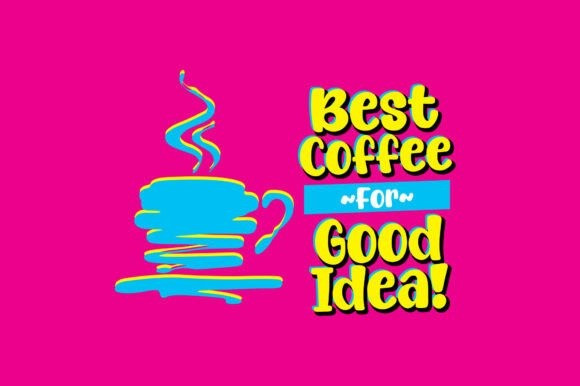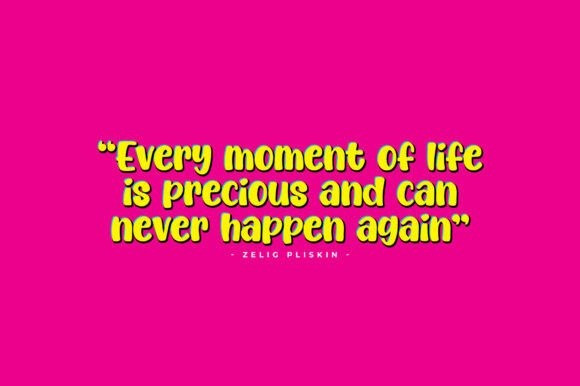
Butterpop Font a high-energy display typeface that radiates joy and movement.The Butterpop typeface features thick, bouncy letterforms accented with playful “motion sparks,” making it a perfect match for snack packaging, toy branding, and vibrant social media graphics.
This font is designed to jump off the page, and its thick silhouette ensures maximum legibility even against busy backgrounds. Pair the Butterpop font with neon color palettes and 3D effects to lean into a modern, pop-culture aesthetic.
Whether you are designing a catchy logo for a new candy brand or a fun YouTube banner, the Butterpop typeface provides the “butter-smooth” flow and “pop” of personality needed to capture any audience’s attention instantly.